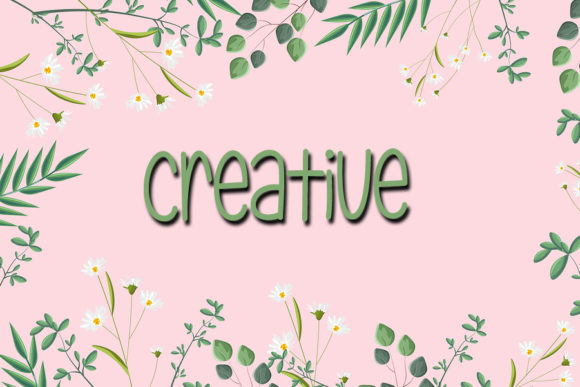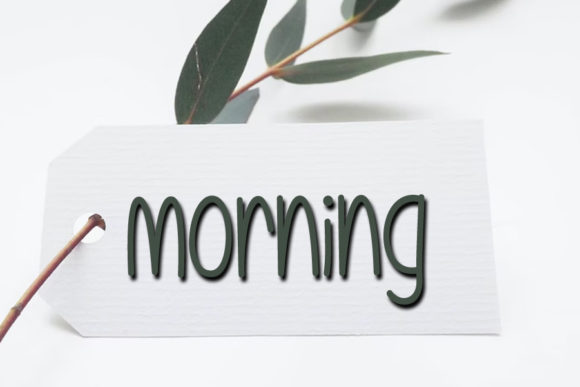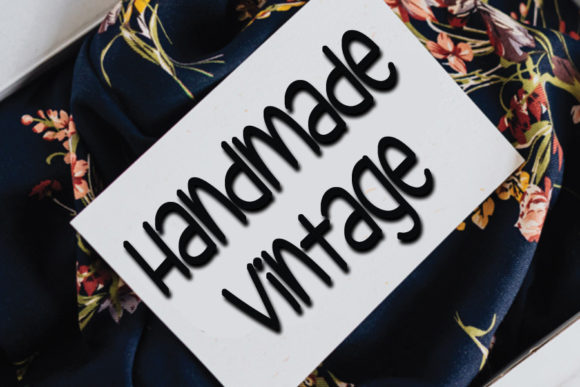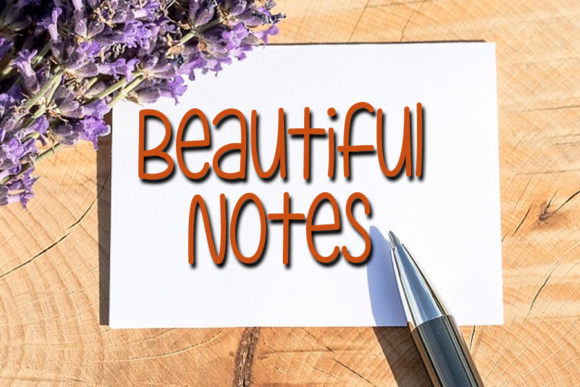
Minimalist Font
About Minimalist Font
Introducing “Minimalist,” a breath of fresh air in the world of fonts. With its clean and uncluttered design, “Minimalist” is the perfect choice for your design purposes and beyond. This versatile handwritten font is here to add a touch of modern simplicity to your projects, elevating them to a whole new level.
“Minimalist” carries a unique charm that effortlessly captures the essence of simplicity. Its straightforward and uncomplicated strokes reflect a sense of elegance that’s perfect for a wide range of design applications. Whether you’re working on logos, t-shirt designs, branding projects, or any other creative endeavor, “Minimalist” is ready to adapt and shine.
The font’s clean lines and well-balanced characters make it an exceptional choice for branding projects. It has the ability to convey your brand’s message with clarity and sophistication, leaving a lasting impression on your audience. From t-shirt prints to product packaging, “Minimalist” will seamlessly blend into various contexts, bringing a touch of understated elegance to every project.
But “Minimalist” is not limited to branding alone. Its versatility allows it to flourish in different creative realms. Imagine using it for invitations, posters, social media graphics, or even as part of your website design. The font’s simplicity adds a sense of refinement and modernity to every piece, making it stand out without overpowering the overall aesthetics.
With “Minimalist” in your design toolkit, you’ll have the power to create projects that exude a sense of timeless elegance and sophistication. Its fresh and simple approach ensures that your creations will always remain relevant and visually appealing, no matter the context.
So, embrace the beauty of simplicity and let “Minimalist” elevate your design game. Whether you’re striving for a minimalistic vibe or looking to add a touch of modern elegance, this font is the perfect companion for your creative journey.